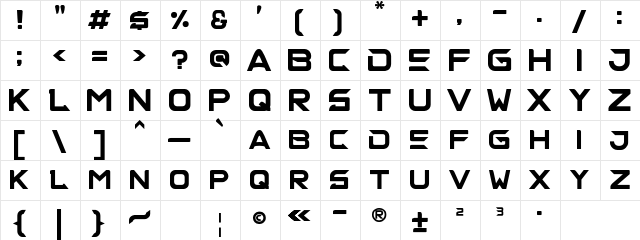
alise Regular
| Designer | Nursaygraphic 2019 |
alise offers clean, dependable letterforms without strong stylistic allegiance, making it a practical choice for designers who need flexibility.